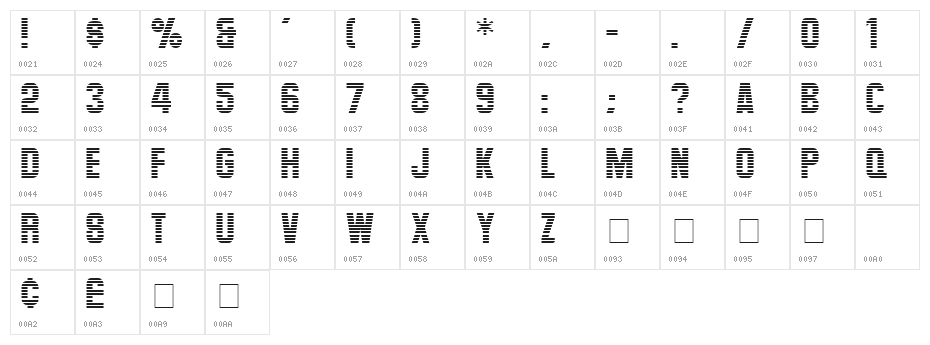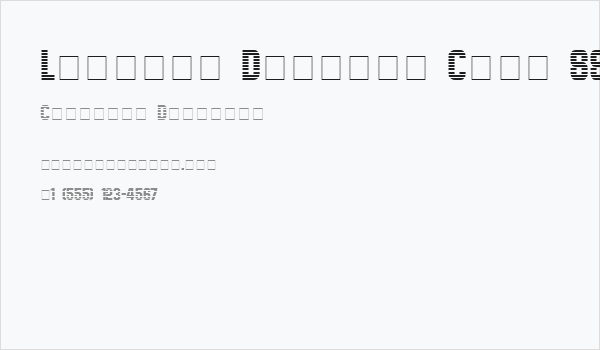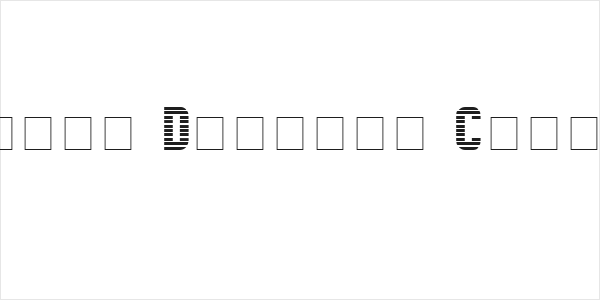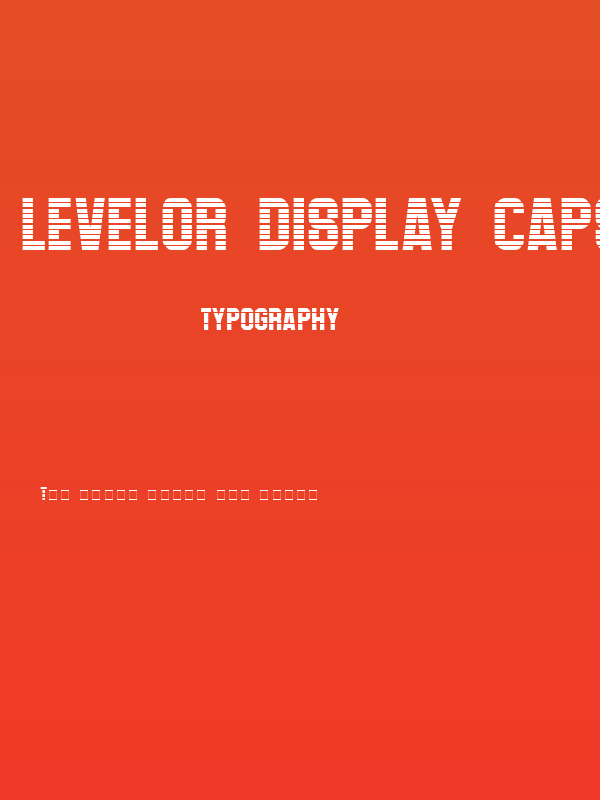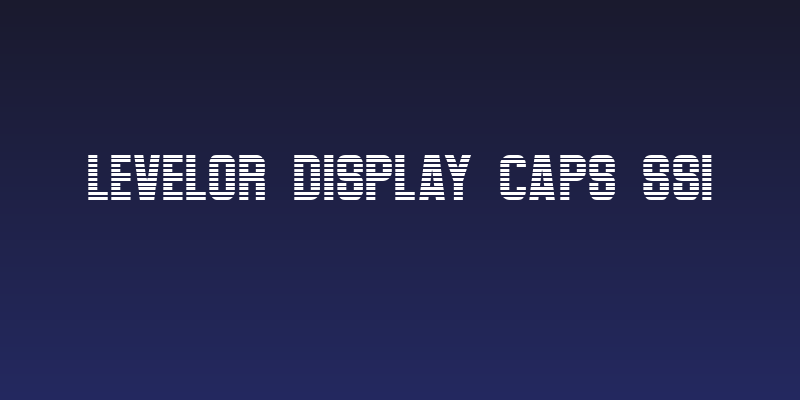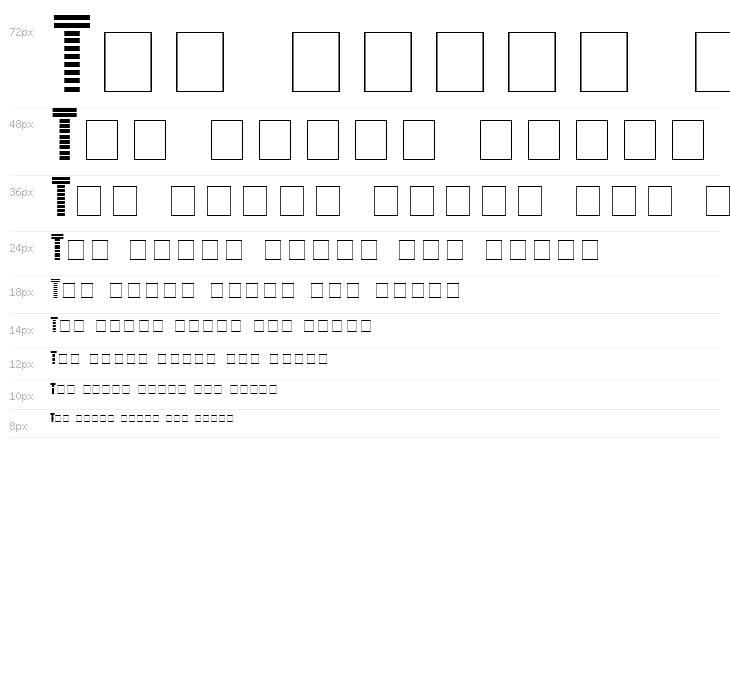
Levelor Display Caps SSi Font
Levelor Display Caps SSi Description
This font features a bold, modern design with a unique striped pattern running horizontally through each character. The uppercase letters are constructed with solid, geometric shapes, giving them a strong, impactful presence. The numbers and special characters follow the same design, maintaining consistency across the typeface. The absence of lowercase letters suggests a focus on display purposes, where attention-grabbing aesthetics are prioritized. The font's style is highly decorative, making it suitable for projects that require a distinctive and eye-catching look.
| Proposed Projects | This font is perfect for poster designs, branding materials, and any project that requires a bold, attention-grabbing headline or title. |